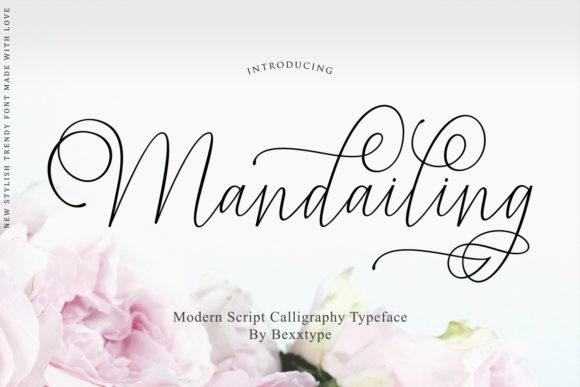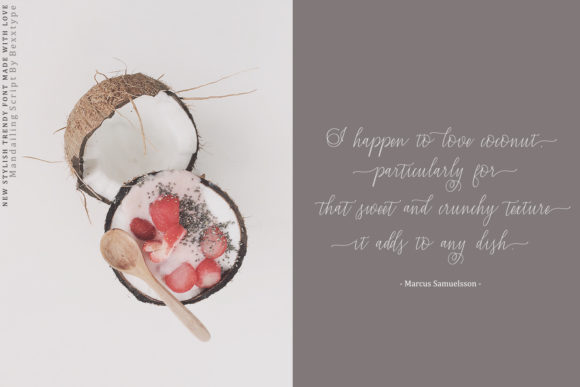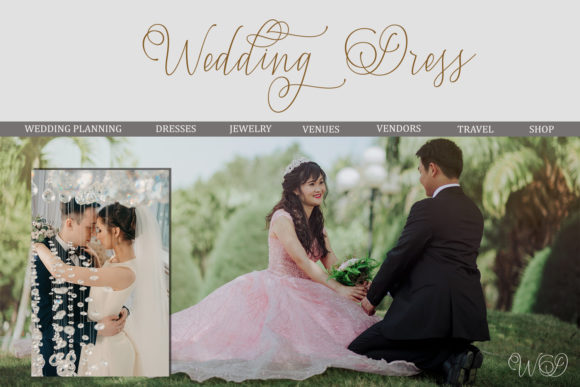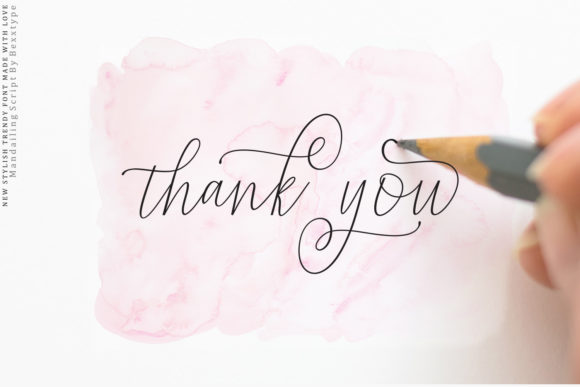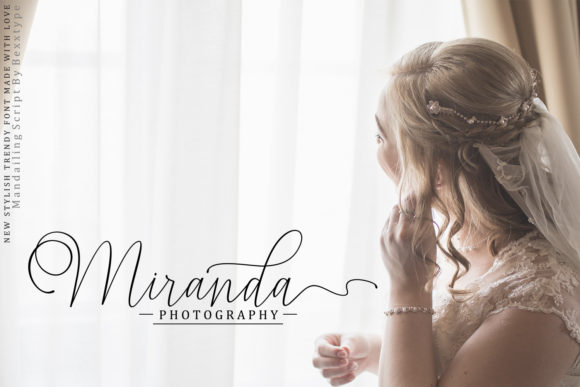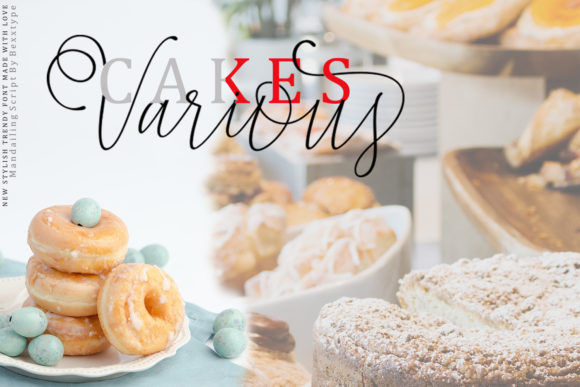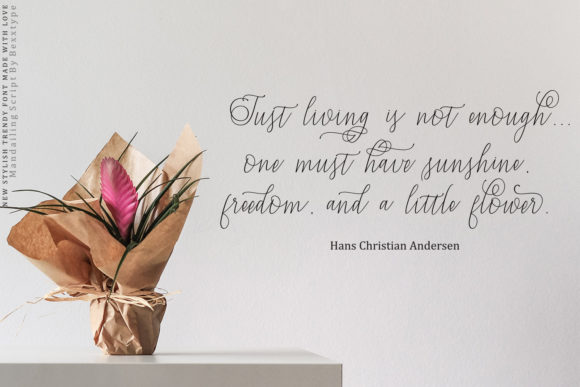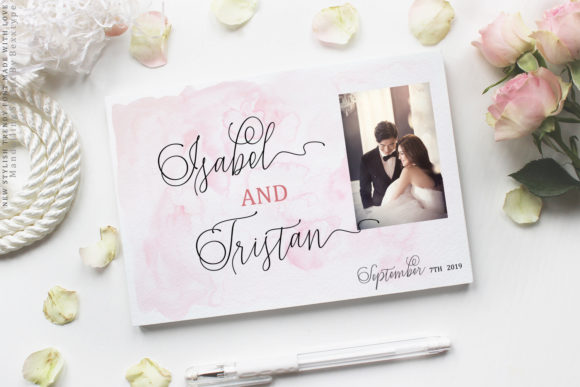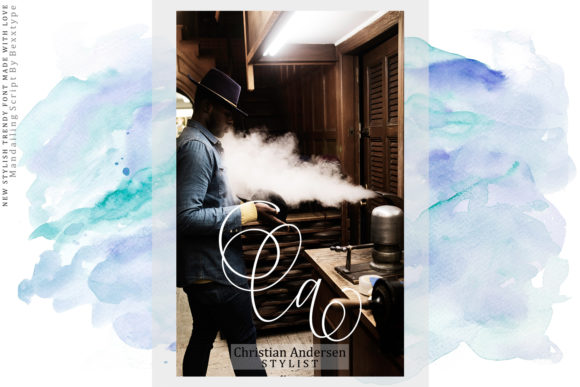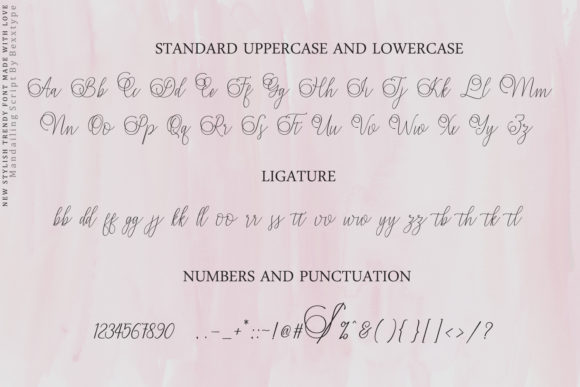
Mandailing Script Font
About Mandailing Script Font
The Mandailing is a modern calligraphy script. It includes beautiful swashes which will give your design an elegant and feminine touch. It’s handmade letters will add a natural feel to any design!